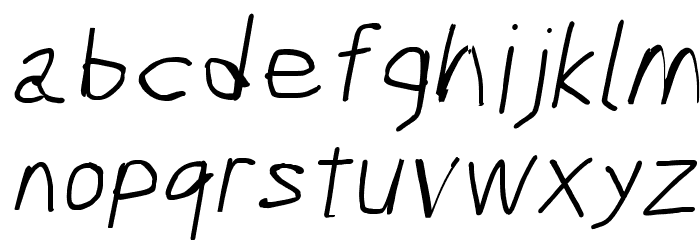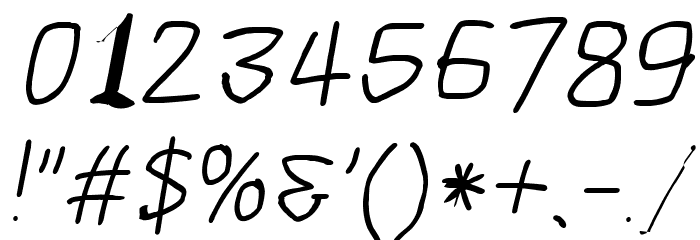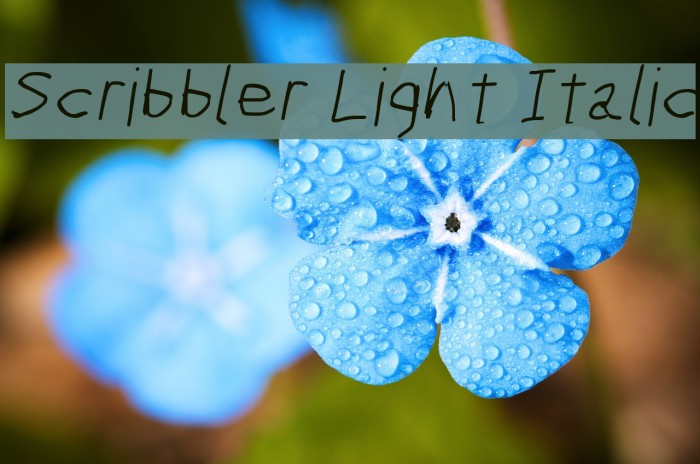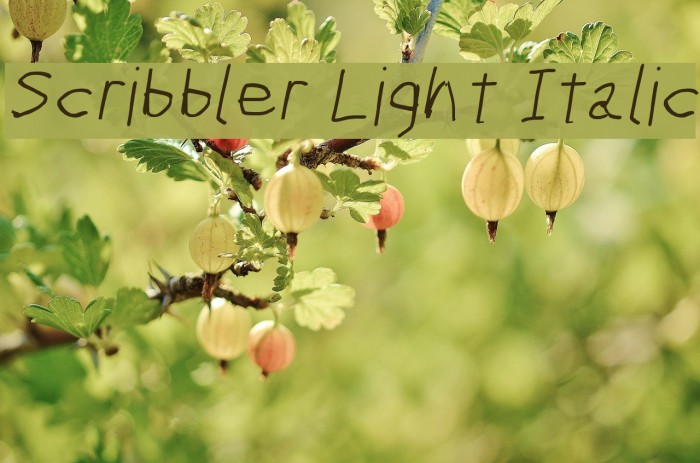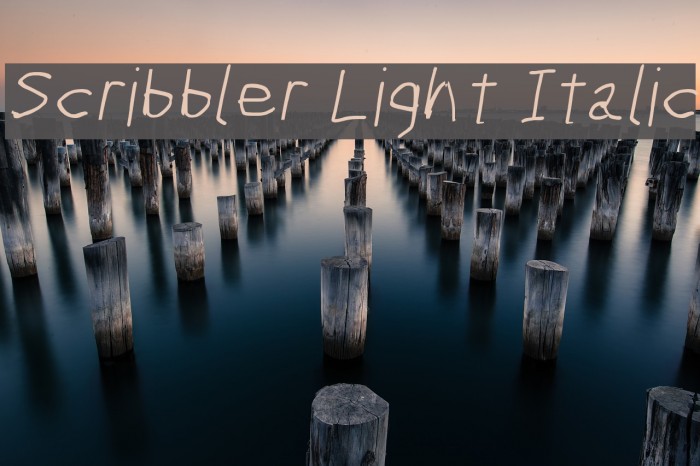
Scribbler Light Italic Font
This font features a casual, handwritten style with a playful and informal appearance. The letters are slightly slanted, giving it an italicized look, and the strokes are uneven, mimicking the natural flow of handwriting. The characters are well-spaced, providing a clear and legible appearance, while maintaining a whimsical charm. The font includes both uppercase and lowercase letters, numbers, and a variety of special characters, making it versatile for different uses. Its light weight adds to the airy and relaxed feel, suitable for projects that require a personal touch.
A casual, handwritten style with a playful, italicized appearance.
- Proposed Projects: Ideal for greeting cards, personal notes, informal invitations, and creative projects that require a personal touch.
- Overall Style: Casual, Playful
- Use Case: Greeting cards, Personal notes, Informal invitations